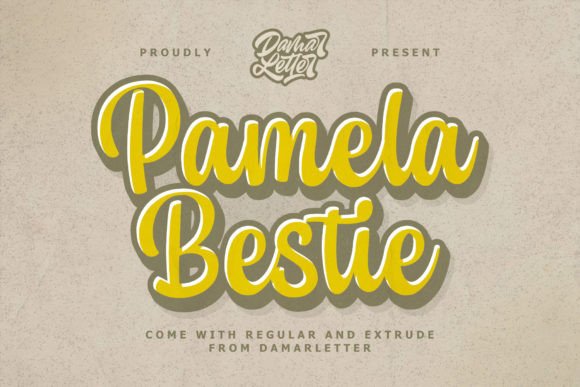
Embrace the joy of creativity with Pamela Bestie Font, the ultimate display font crafted by Damarletter, designed to ignite your designs with a burst of personality. Dive into a world of visual delight as Pamela Bestie's playful layers intertwine, creating a captivating dance of letters.
With its hand-drawn essence and a touch of irregularity, Pamela Bestie is more than just a font; it's a canvas for your imagination. Each character carries a hint of whimsy, inviting you to infuse your designs with a dash of charm and a sprinkle of quirkiness. Whether you're crafting wedding invitations, creating social media graphics, or designing posters, Pamela Bestie will elevate your creations to new heights of visual appeal.
Imagine your wedding hashtag adorned with Pamela Bestie's enchanting curves, each letter adding a touch of playfulness and elegance to your special day. Your guests will be captivated by the unique charm of this font, making your wedding truly unforgettable.
Pamela Bestie is not just a font; it's a gateway to a world of creative possibilities. Its versatility extends beyond wedding-related designs, making it a perfect choice for branding projects, logo creations, product packaging, and countless other endeavors. Unleash your imagination and explore the endless opportunities that await you with Pamela Bestie as your creative companion.
Don't settle for ordinary fonts that blend into the background. Embrace the extraordinary with Pamela Bestie, the font that ignites your creativity and captivates your audience. Let your designs shine with a personality as unique as your imagination.